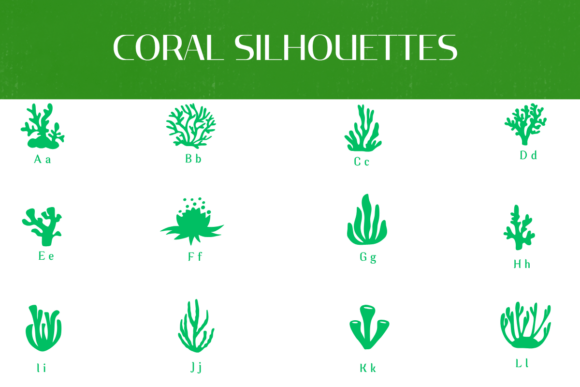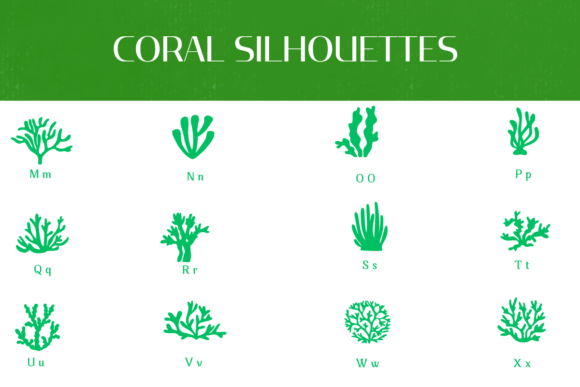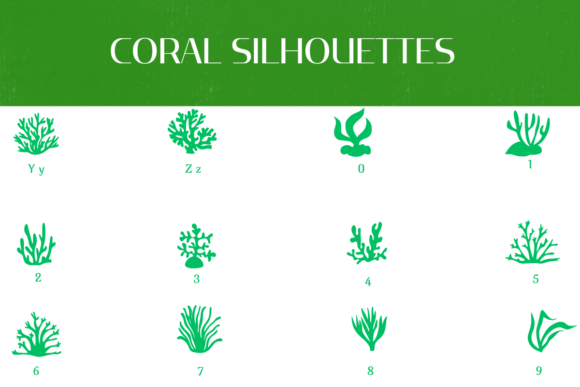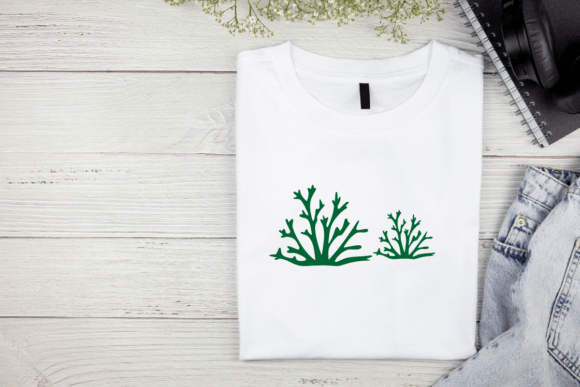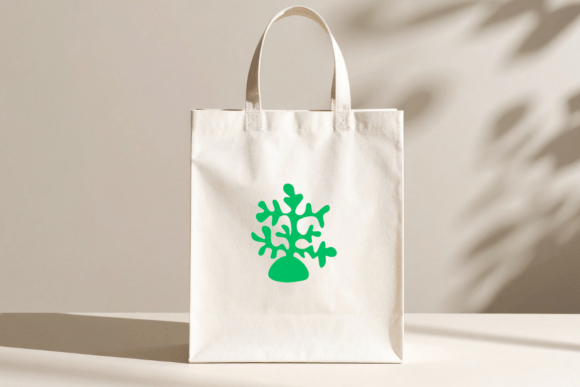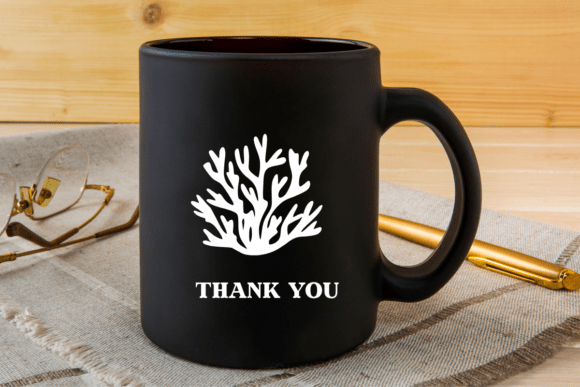
Introduction to Coral Silhouettes Font
Coral Silhouettes is a Dingbats Fonts.
You can use it for taking notes, writing a diary, or making greeting cards However, you can still use it for other designs, such as banners, content, mugs, cards, shirts, stationery, social media posts, and more.
Key Features of Coral Silhouettes Font
Why Choose Coral Silhouettes Font?
Coral Silhouettes Font offers exceptional quality and versatility, making it a valuable addition to your design toolkit. Whether you’re creating for personal projects or commercial use, Coral Silhouettes Font delivers professional results.